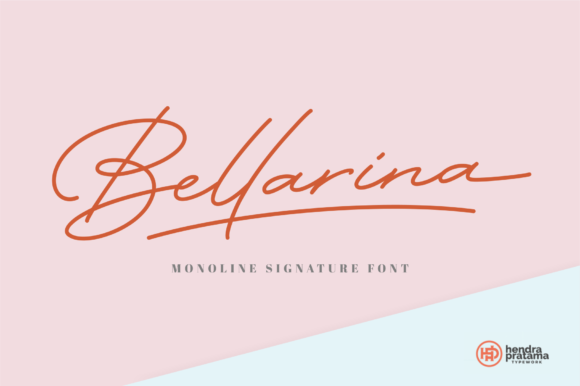
Bellarina Font for Elegant Signatures and Branding
Looking for a font that combines elegance with versatility? Bellarina is a monoline signature font that stands out for its clean, refined style. Whether you're designing name cards, branding materials, or digital content, Bellarina offers a unique aesthetic that enhances your message. Let's explore how this font can elevate your personal and professional projects.
What Makes Bellarina Unique?
Bellarina is more than just a fontβit's a design choice that speaks volumes about your brand or identity. As a monoline signature font, it features consistent stroke widths, which give it a balanced and modern appearance. This makes it ideal for creating signatures that are both legible and stylish.
One of the standout qualities of Bellarina is its adaptability. It works well in both digital and print formats, ensuring your designs look great across different mediums. Its simplicity doesn't mean it lacks character; instead, it allows your content to take center stage while maintaining an air of sophistication.
Key Characteristics of Bellarina
- Monoline Style: Uniform line thickness ensures clarity and consistency.
- Elegant Design: Perfect for creating a polished, professional look.
- Versatile Use: Suitable for a wide range of applications from branding to social media.
- Legibility: Clear and easy to read even at smaller sizes.
Practical Applications of Bellarina
The beauty of Bellarina lies in its ability to fit into various contexts. From personal use to commercial branding, this font has a place in many creative endeavors.
For individuals, Bellarina is perfect for designing personalized name cards or adding a signature to resumes and business proposals. Its clean lines make it easy to read, which is essential when making a strong first impression.
Professionals such as marketers, educators, and bloggers can leverage Bellarina to enhance their digital presence. Using it in blog headers, email signatures, or social media posts adds a touch of professionalism and visual appeal. For example, a blogger might use Bellarina for their website header to create a cohesive and elegant brand image.
Branding and Commercial Use
In the world of branding, every detail matters. Bellarina can be used in logos, packaging, and promotional materials to convey a sense of refinement. Its minimalist approach allows brands to focus on their core message without unnecessary distractions.
Business owners and entrepreneurs can benefit from using Bellarina in presentations, brochures, and advertising materials. The fontβs consistent style helps maintain brand identity across all platforms, reinforcing recognition and trust among customers.
Why Choose Bellarina Over Other Fonts?
While there are many fonts available, Bellarina distinguishes itself through its balance of simplicity and elegance. Unlike some script fonts that can be difficult to read, Bellarina maintains legibility while still offering a stylized look.
This font also excels in digital environments. When used in web design or mobile apps, Bellarina ensures that text remains clear and visually appealing on screens of all sizes. Its scalability makes it a reliable choice for designers who need to maintain quality across different resolutions.
Real-World Examples
Imagine a small business owner who wants to create a professional logo. By using Bellarina, they can achieve a clean, modern look that reflects their brand's values. Similarly, a freelance writer might use Bellarina in their email signature to add a personal touch that stands out in a sea of generic messages.
For publishers and educators, Bellarina can be used in book covers, academic papers, or presentation slides. Its readability and elegance make it suitable for educational materials where clarity is key.
Considerations When Using Bellarina
While Bellarina is highly versatile, it's important to consider how it fits within your overall design. Like any font, it should complement rather than overshadow your content. When selecting Bellarina for a project, ensure that it aligns with the tone and purpose of your message.
Finally, experiment with spacing and pairing. While Bellarina is beautiful on its own, combining it with other fonts can create dynamic visual effects. Pairing it with a sans-serif font for body text, for instance, can create a harmonious contrast that draws attention to your main message.
Bellarina is more than just a fontβit's a tool that empowers you to communicate with clarity and confidence. Whether you're designing for yourself or your business, this elegant monoline signature font offers a timeless solution that enhances your work in meaningful ways.